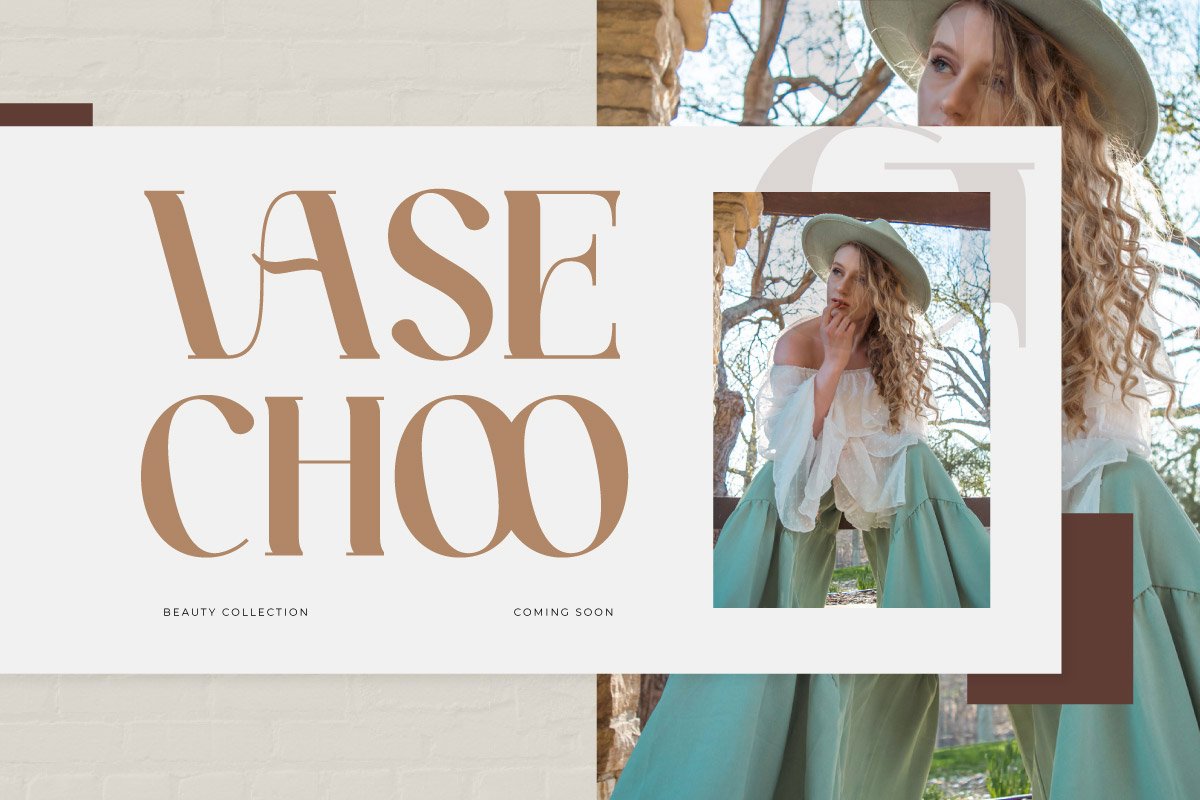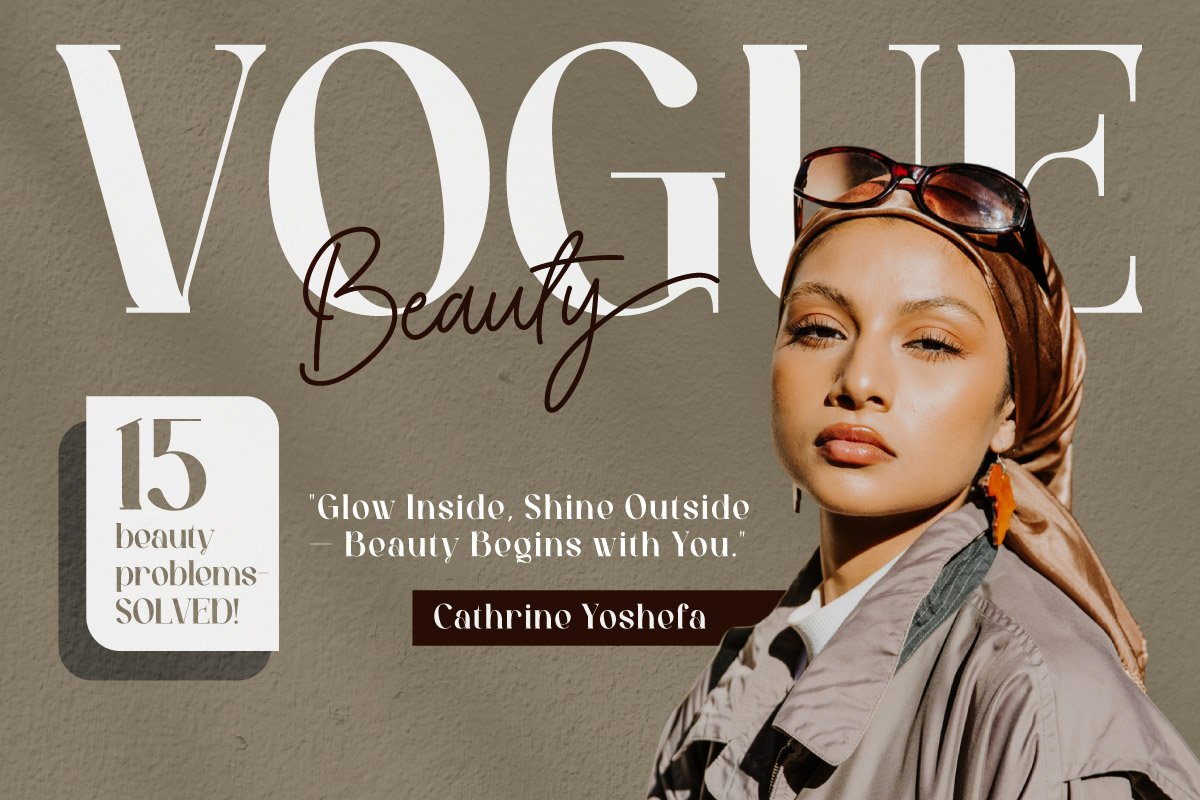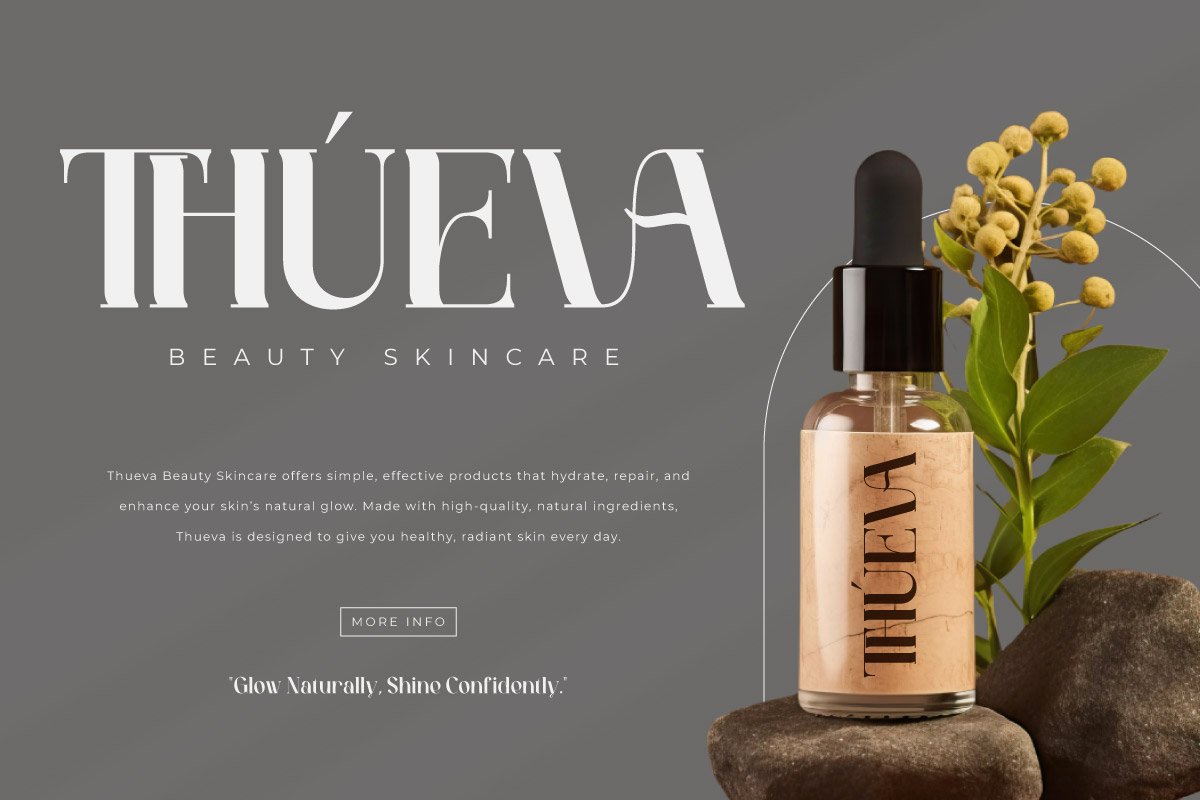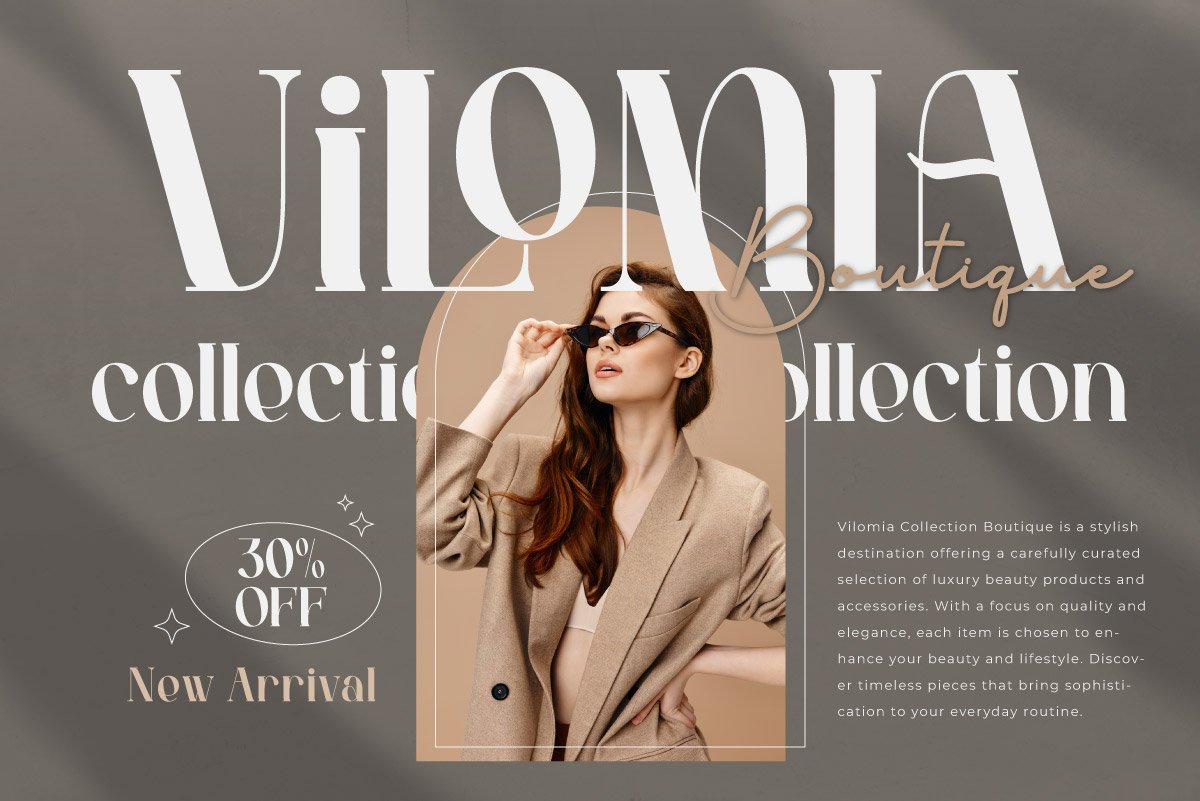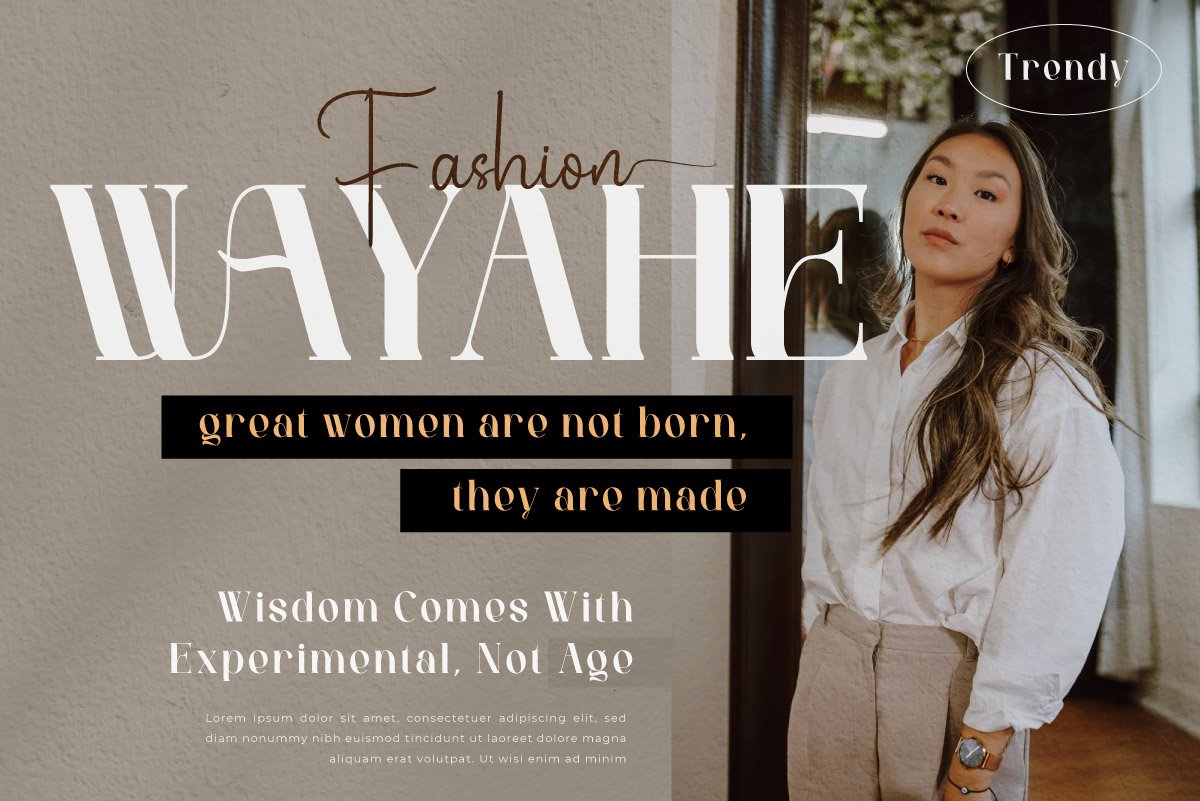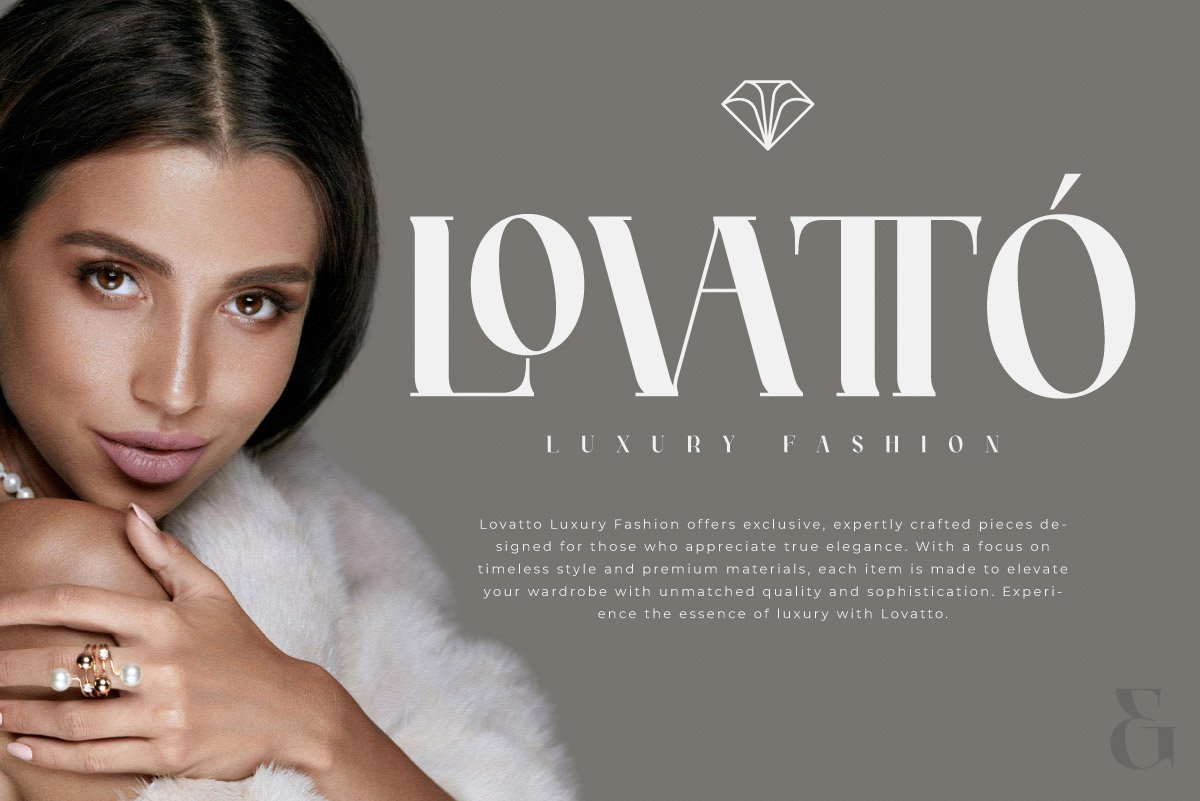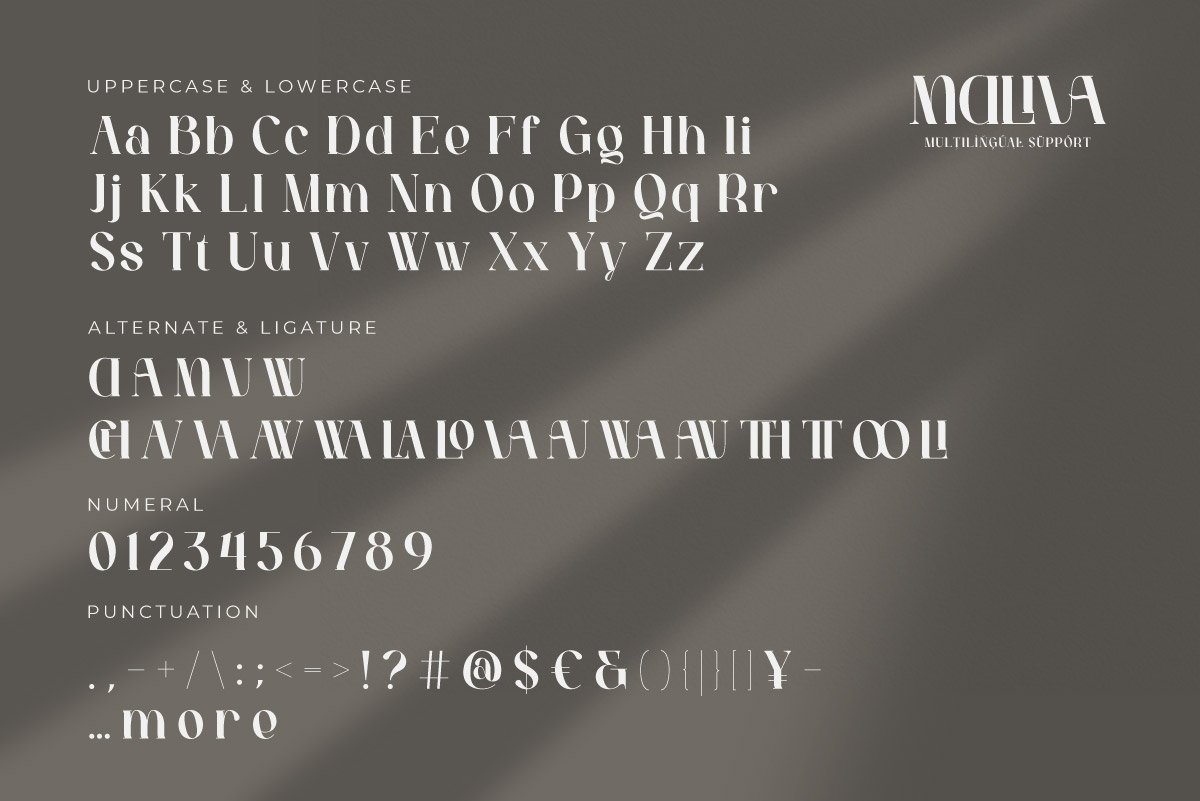
Maliva – Elegant Modern Serif for Fashion & Luxury Branding
Elevate your fashion brand, editorial design, and luxury branding with Maliva, a sophisticated modern serif font crafted for high-end branding, magazine layouts, and website headers. Inspired by the elegance of Mocha Mousse tones, Maliva blends timeless aesthetics with contemporary style, making it perfect for perfume packaging, fashion lookbooks, and designer business cards. Whether you’re designing for premium fashion brands or upscale print materials, this font delivers a bold yet refined visual identity.